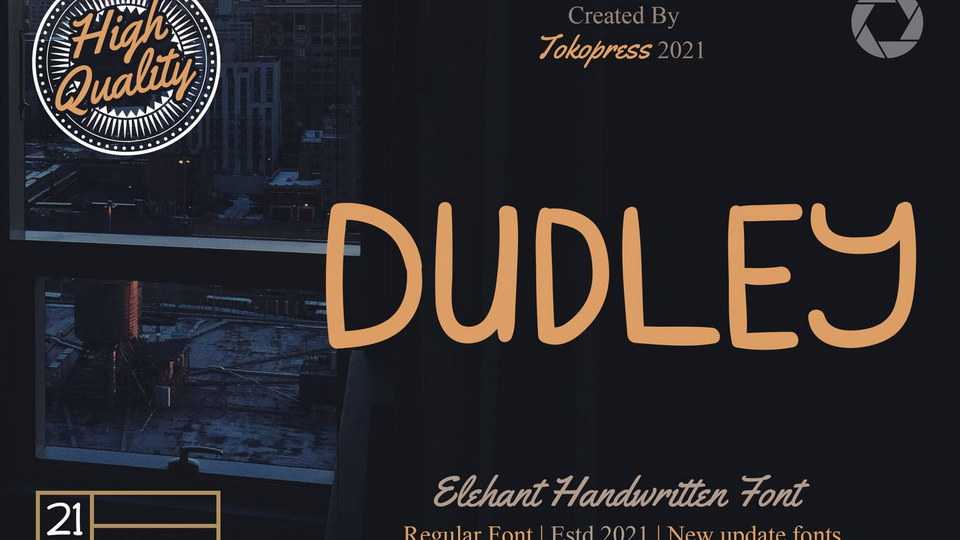
Download Dudley font, an elegant handwriting typeface. It’s an all caps handwriting font that will give a touch of elegance in handwriting style. Give some human touch in all that robotic society.